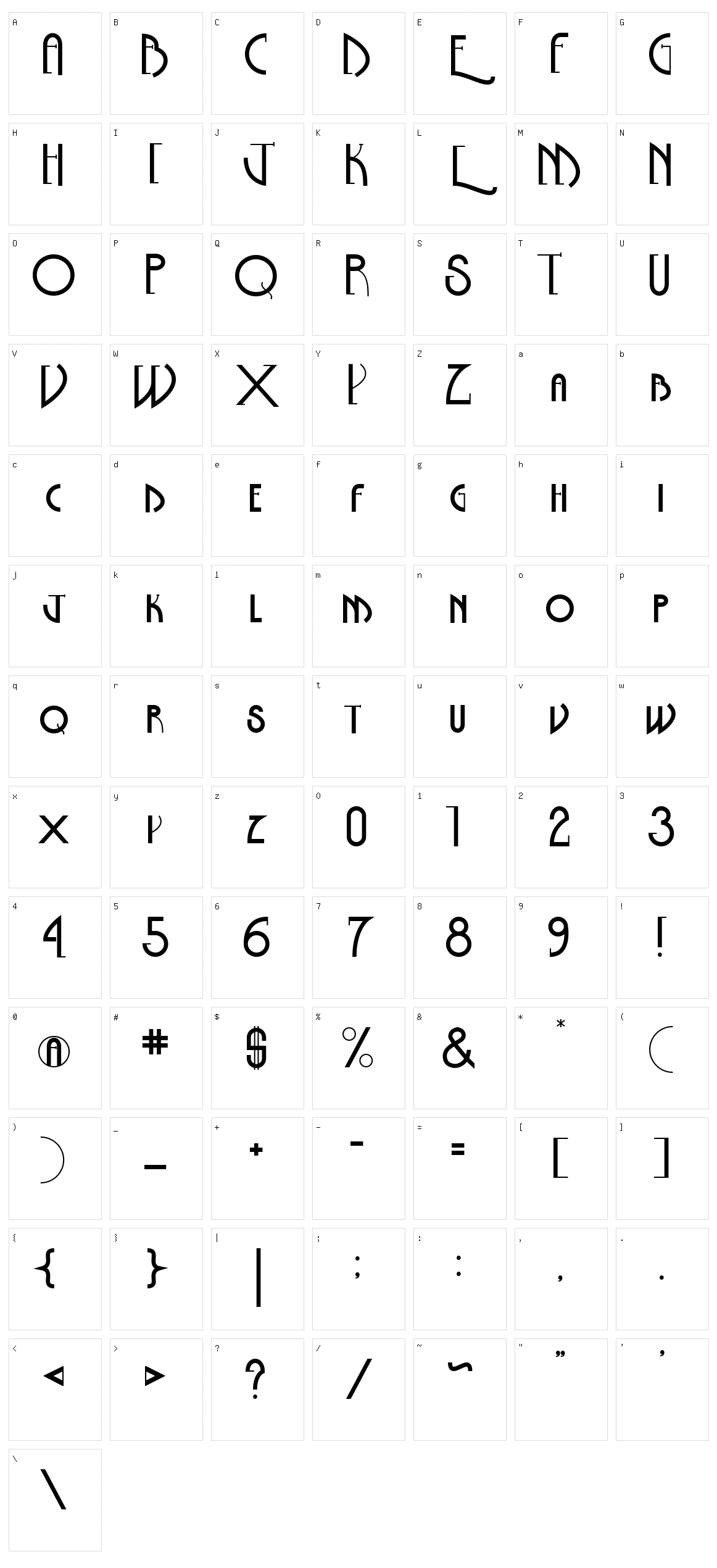
The free font The Eighteenth Amendment is carefully designed by Julia Holdnack, showcasing a thoughtful balance of creativity and usability and falls under the Retro font style. When you download the ZIP file, it contains only 101.83 KB of font files, making it lightweight and quick to download. Please review the license details below to understand permitted usage and distribution rights. If license information is not available, we recommend using this font for personal projects only or contacting the author directly for commercial usage permissions.